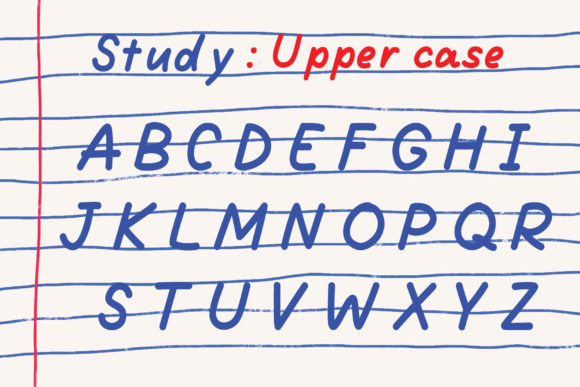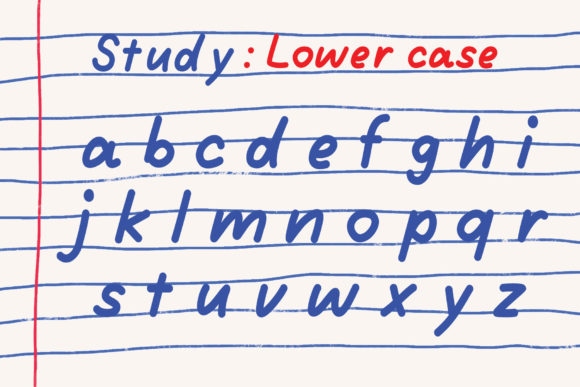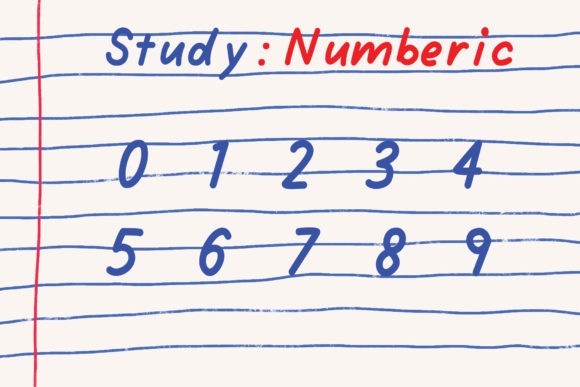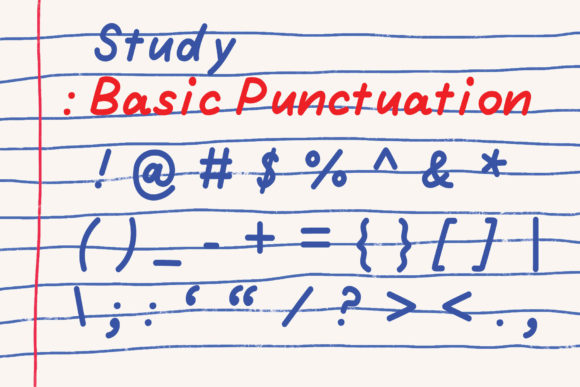
Study Font
About Study Font
Study is a sweet and friendly handwritten font. Its natural and unique style makes it incredibly fitting to a large pool of designs. The only limit is your imagination!